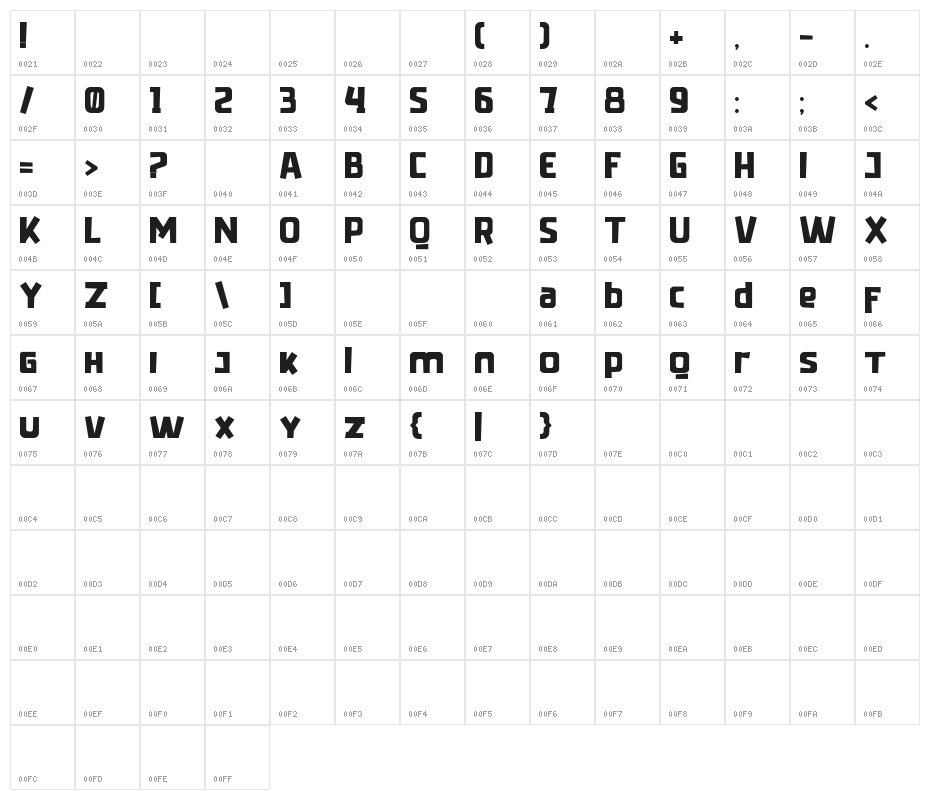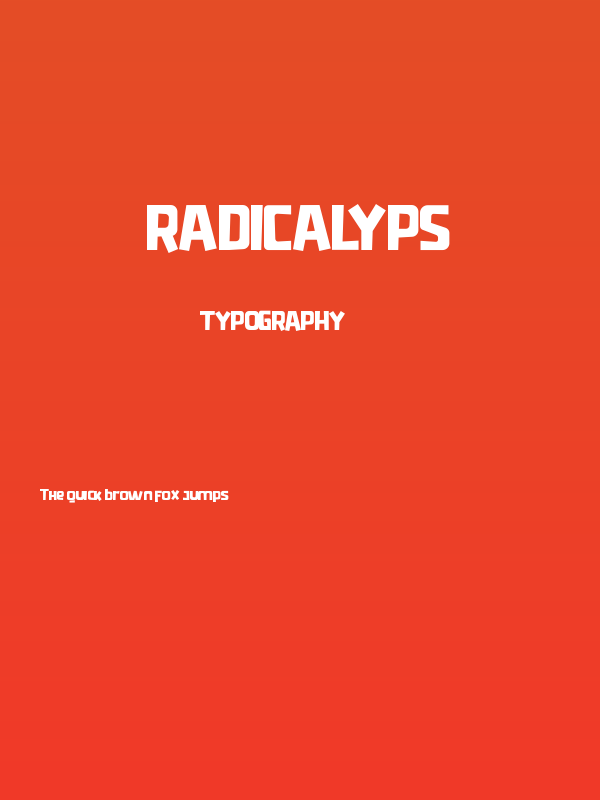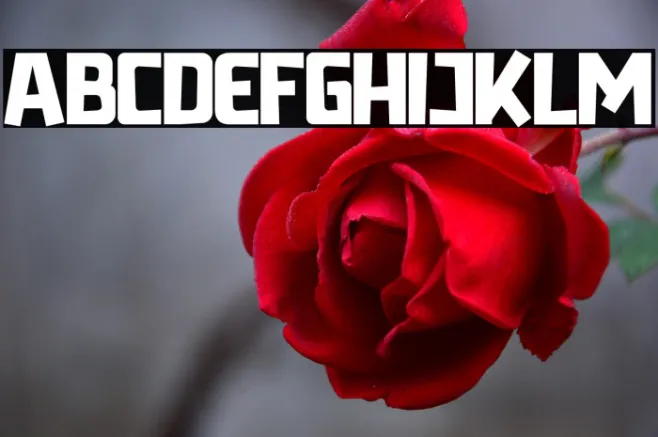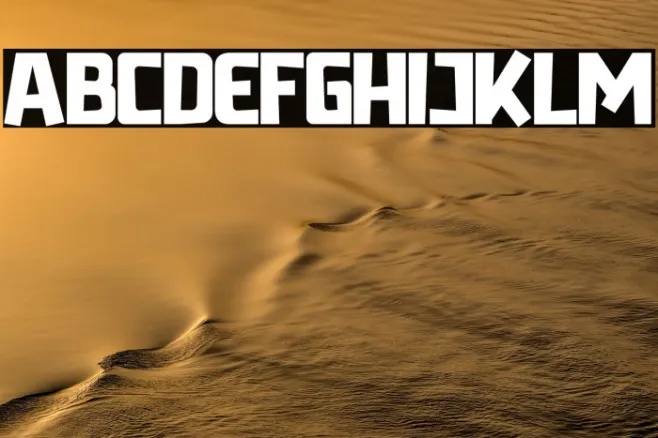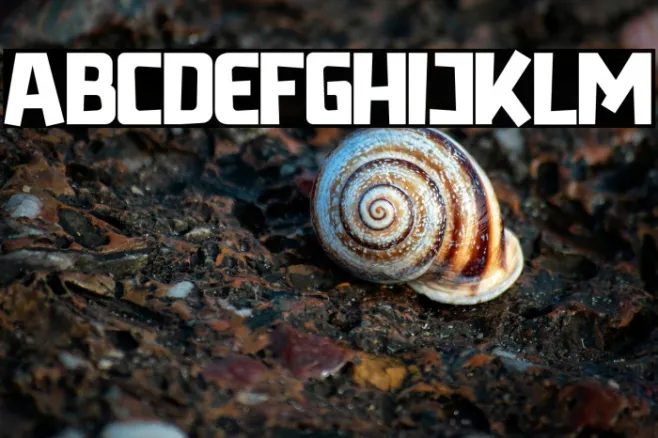
Radicalyps Font
Radicalyps Description
This font features a bold and dynamic style with a strong geometric influence. The characters are blocky and angular, giving a sense of strength and modernity. The uppercase letters are particularly striking, with a uniform height and width that create a cohesive look. The lowercase letters maintain the same boldness, with some unique variations that add interest and character. Numbers are equally bold, ensuring they stand out in any design. The special characters are designed to match the overall aesthetic, making them perfect for attention-grabbing headlines or logos.
| Proposed Projects | Ideal for branding, posters, headlines, and any project requiring a strong visual impact. |